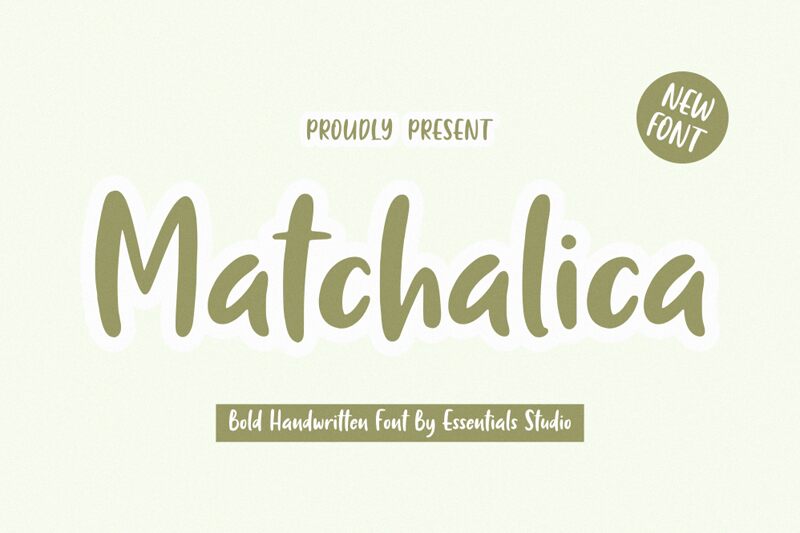
Matchalica font by Essentials Studio is handwritten and informal with fluid strokes, rounded edges, bold weight, and high contrast. Playful mood style has eye-catching uppercase and lowercase letters plus large accents in a variety of languages.
This font can be used for wall quotes, social media post quotes, album cover fonts titles or author names, logos & branding for stylists photographers bakeries etc., book covers signage product packaging invitation cards scrapbooks window graphics tags birthdays baby showers weddings any kind of project needing playful decoration.
Matchalica